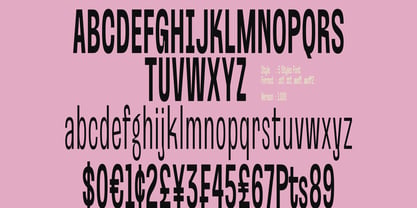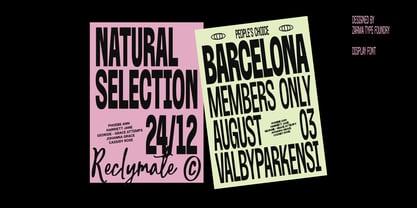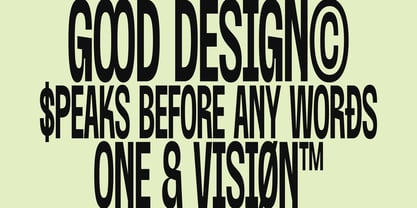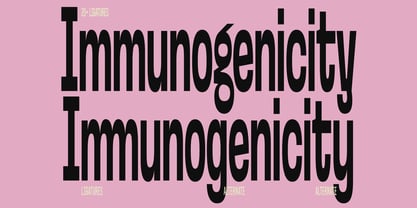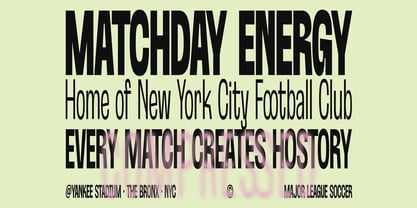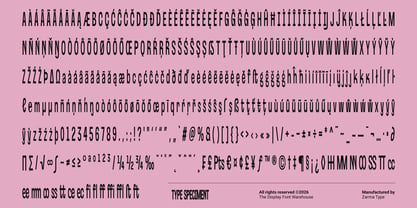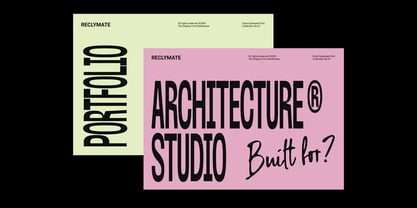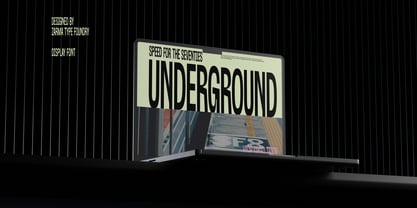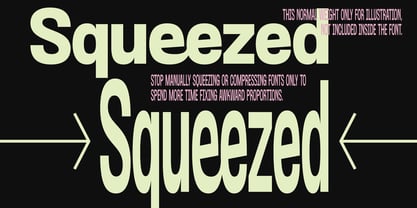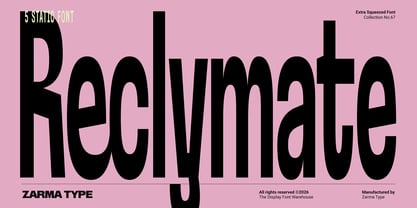
Reclymate
by Azzam Ridhamalik
Reclymate is an extra condensed font built from the ground up with deliberately narrow proportions, elongated letterforms, and tightly controlled curves. Instead of mechanically squeezing a regular typeface, every character is manually crafted to maintain balance, readability, and personality at an extreme width. The result is a striking sans serif display font with a contemporary editorial attitude and unmistakably compressed presence.
Available in five static weights from Thin to Bold, Reclymate creates dramatic typographic hierarchy while keeping its distinctive condensed structure consistent. Built for oversized editorial headlines, poster design, sports graphics, branding, packaging, and digital layouts, it performs especially well when horizontal space is limited but the typography still needs maximum visual impact.
Perfect for:
• Oversized Editorial Headlines
• High-Impact Poster Design
• Contemporary Brand Identity
• Sports & Matchday Graphics
• Modern Packaging Design
• Fashion & Culture Campaigns
• Magazine & Publication Layouts
• Web & Digital Hero Typography
• Architecture & Portfolio Graphics
• Experimental Graphic Design
Features:
• 5 Static Weights: Thin, Light, Regular, Medium & Bold
• Uppercase & Lowercase
• Numbers, Punctuation & Symbols
• 20+ Ligatures
• Stylistic Alternates
• Extensive Multilingual Support
Stop forcing ordinary fonts into awkward proportions. Reclymate gives editorial layouts, posters, brand identities, and digital projects a purpose-built compressed character that stays controlled, expressive, and visually powerful even when horizontal space is limited.